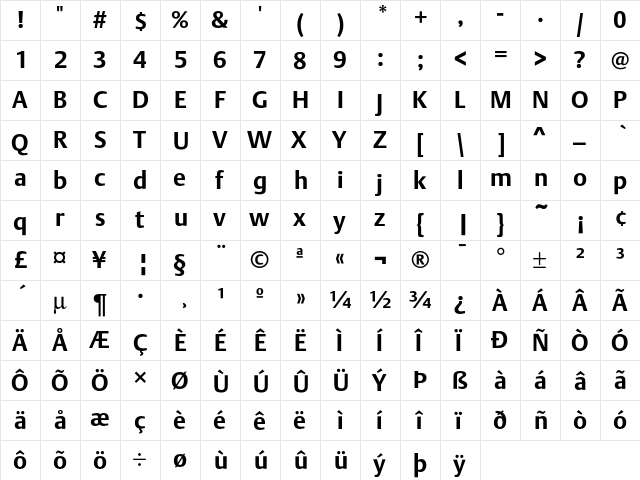
DTLArgoT Bold
Design Context for DTLArgoT Typeface
DTLArgoT offers clean, dependable letterforms without strong stylistic allegiance, making it a practical choice for designers who need flexibility. The heavy weight commands attention and anchors typographic hierarchies.
Pro Tip: Use DTLArgoT in both headline and body roles to test its range before committing to a single application.